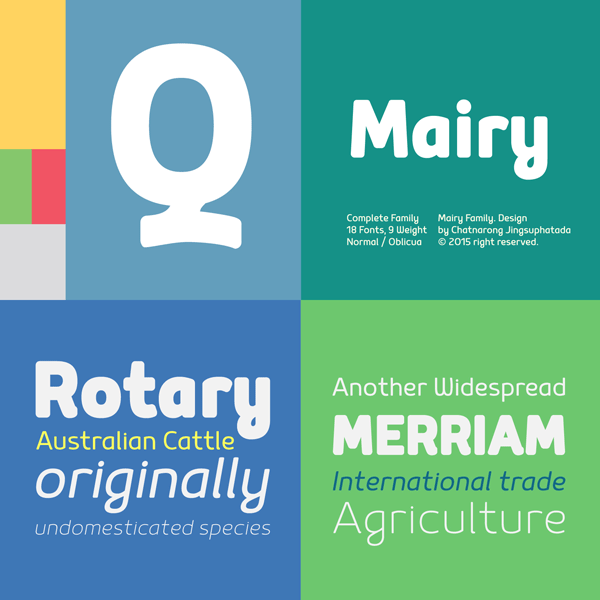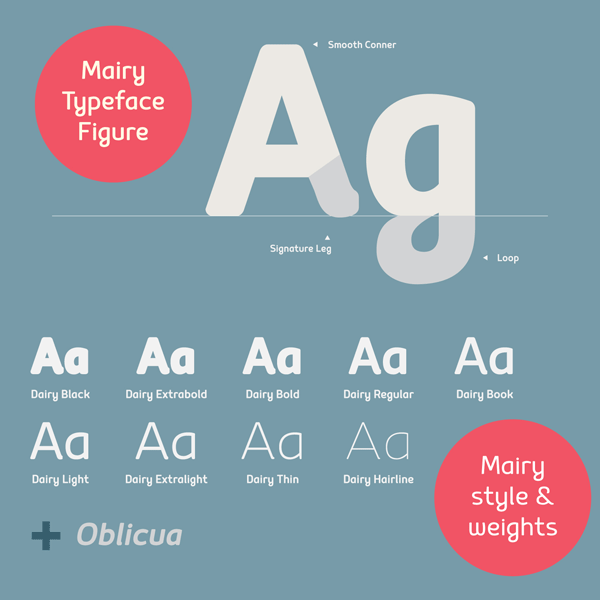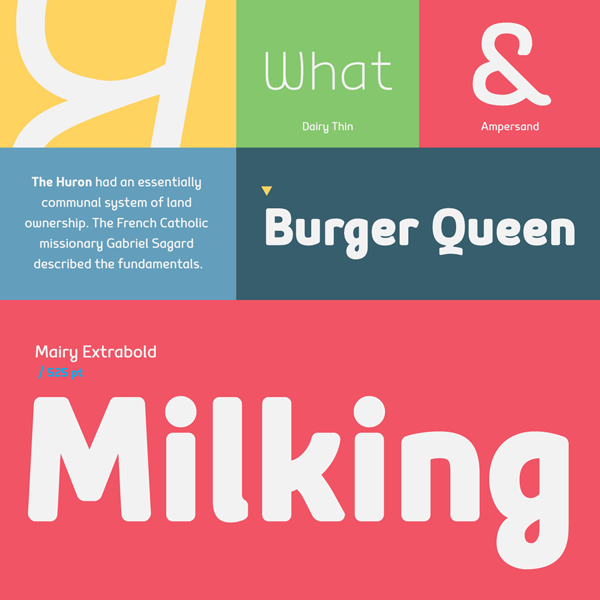
The Mairy font family, a modern and friendly sans serif typeface from foundry Typesketchbook.
Chatnarong Jingsuphatada, a type desiner from Thailand has created the Mairy font family for foundry Typesketchbook in 2014/2015. It’s a rounded sans serif family that offers a striking humanist presence. The Mairy font family consists of 9 separate weights each followed by true italics. Chatnarong Jingsuphatada added some calligraphic elements to the typeface, which are most notably in italics. This mix between Grotesk geometry with handwriting styles results in a modern and friendly typeface.
The Mairy font family provides a well-balanced kerning and a strong contrast, which ensures a great legibility. It’s a highly usable font with weights ranging from Hairline to Black. The light weights look elegant while the bold versions convey a softer style with lively vitality. Mairy’s mid weights provide best legibility. This surprisingly flexible family can be used for screen or print. With the use of OpenType compatible software you can explore the full potential of the Mairy font family. Its OpenType features include stylish ligatures and alternative characters.